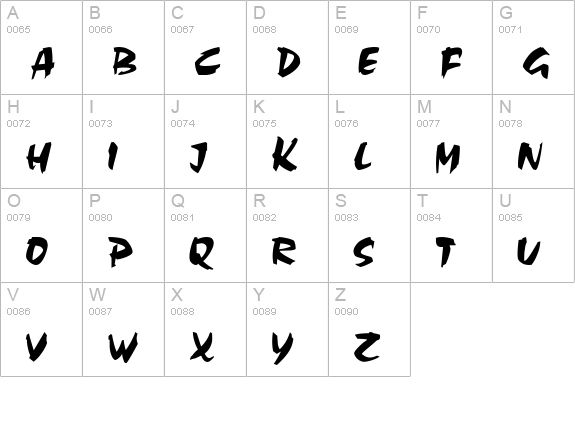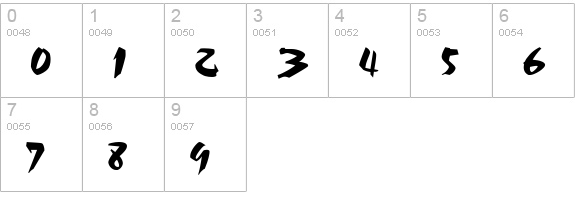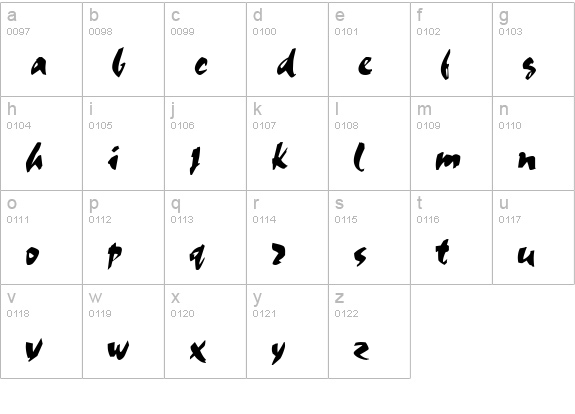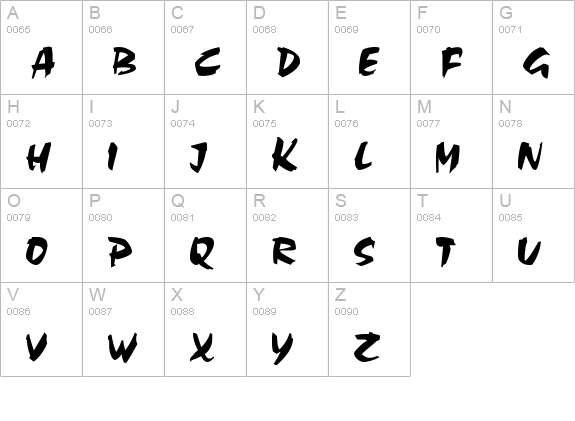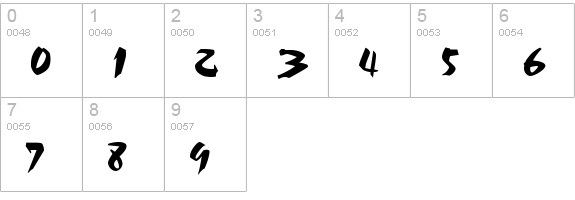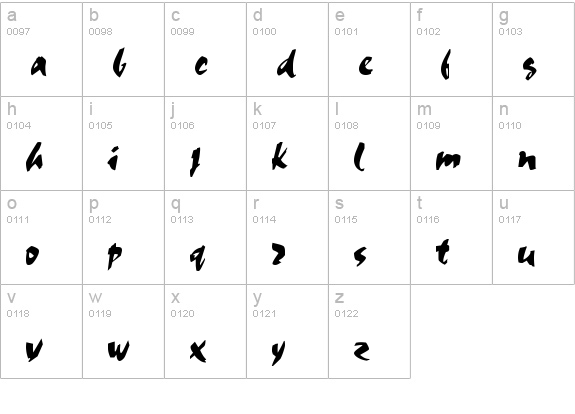
Marker Board Display SSi Font Details
Marker Board Display SSi is a captivating font that adds a touch of creative flair to any project. This unique typeface combines the charm of hand-drawn markers with the precision of a digital font, resulting in a visually striking display font that is sure to grab attention. Featuring bold, thick strokes and a slightly uneven baseline, Marker Board Display SSi exudes a sense of playful spontaneity. Its lively and expressive design makes it perfect for eye-catching headlines, signage, logos, and other design projects that require a touch of personality. What makes Marker Board Display SSi even more appealing is that it is available for free download at FontsMarket.com. This means that you can easily access this delightful font and use it in your designs without any hassle or cost. Whether you're a professional designer looking to add some creativity to your work or a hobbyist looking to spruce up your personal projects, Marker Board Display SSi is a fantastic choice. With its bold and distinctive style, Marker Board Display SSi is sure to make a lasting impression. Its versatility allows it to be used across various design applications, from branding and packaging to social media graphics and invitations. The possibilities are endless with this free font. So why wait? Head over to FontsMarket.com today and download Marker Board Display SSi for free. Unleash your creativity and give your designs a unique and captivating look with this remarkable font.